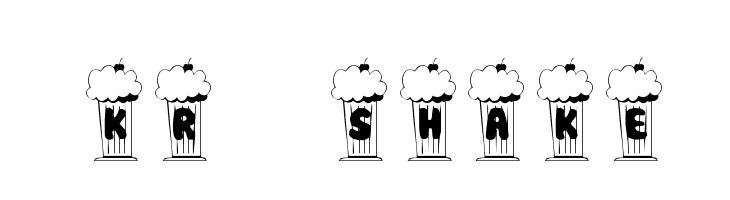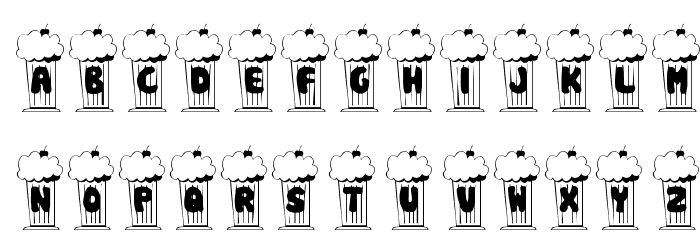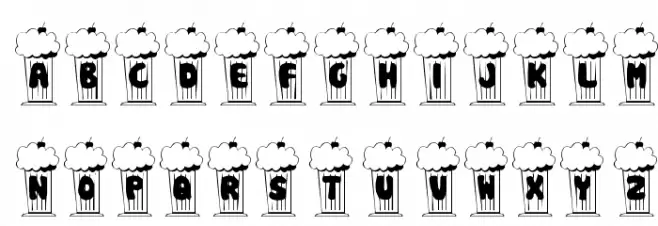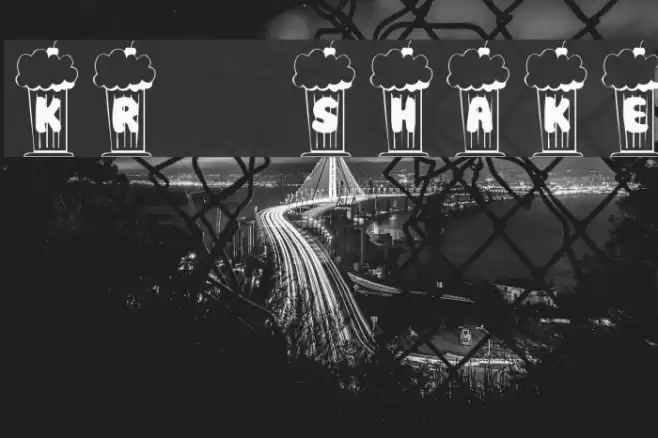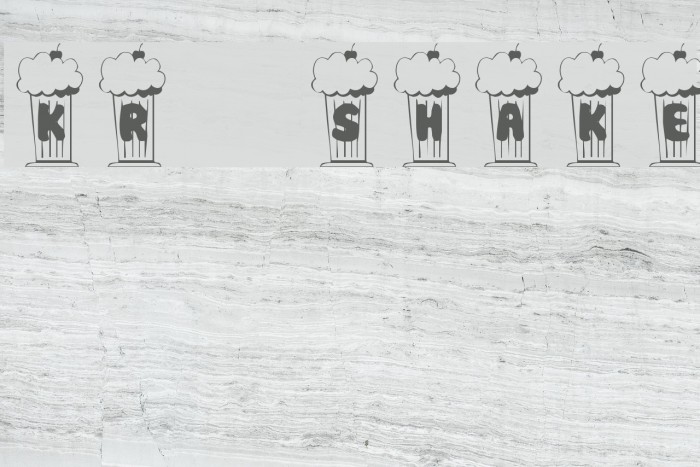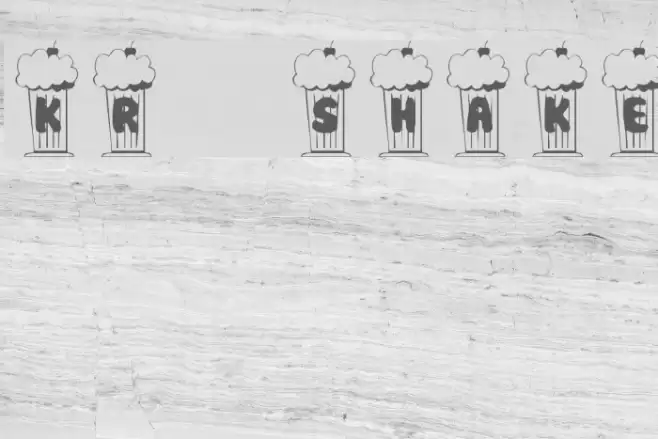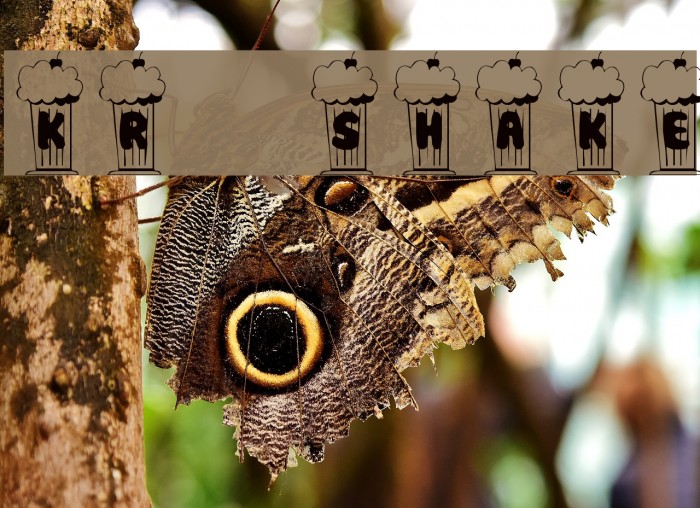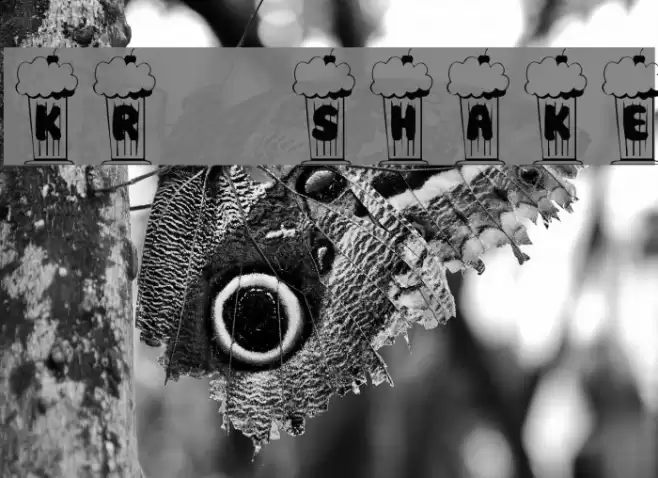
KR Shake Font
This playful and whimsical font features letters that appear to be emerging from fluffy, cloud-like shapes. Each character is encased in a cartoonish popcorn bucket, adding a fun and quirky element to the design. The bold, uppercase letters are consistent in their playful style, making them ideal for projects that require a lighthearted and entertaining touch. The font's unique design is perfect for children's books, party invitations, or any creative project that aims to capture a sense of fun and imagination. The characters are evenly spaced, ensuring readability while maintaining their distinctive style.
A playful font with letters emerging from cloud-like shapes, perfect for fun and creative projects.
• Proposed Projects: Children's books, party invitations, playful branding, creative posters.
• Category: Decorative/Display
• Bold: Yes
• Italic: No
• Weight: Bold
• Width: Normal
• Character Spacing: Normal
• Contrast: Low
• Overall Style: Whimsical, Fun, Playful
• Use Case: Headlines, Logos, Posters